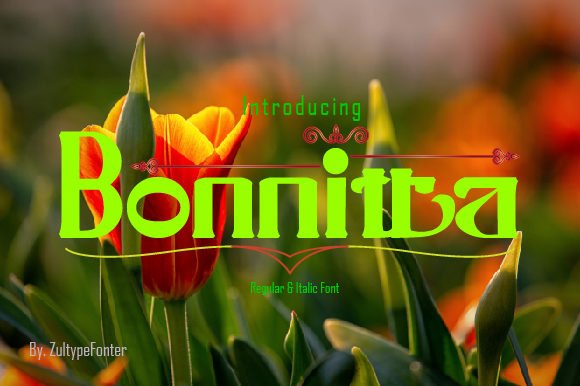
Discover the Perfect Serif Font for Your Creative Projects
Have you ever stared at a blank canvas, trying to come up with the perfect design concept, only to find that the right words just won’t come together? You’re not alone. Many designers face this challenge every day, and it’s often the smallest details that can make all the difference. That’s where the Bonnitta Font comes in – a beautifully crafted serif font designed to elevate your creative projects to new heights.
This stunning font is not just a pretty face; it’s a valuable tool for designers looking to add a touch of sophistication and elegance to their work. With its masterful design, Bonnitta Font has the potential to bring even the most mundane ideas to life. Whether you’re a seasoned pro or just starting out, this font is sure to become a true favorite in your design arsenal.
Bonnitta Font Key Features
- Unique Characteristics: Bonnitta Font features a unique blend of modern and vintage elements, with intricate details and ornate flourishes that set it apart from other fonts.
- Font Weight: Bonnitta Font offers multiple font weights, including Light, Regular, Bold, and Black, allowing designers to achieve a range of visual effects and emphasize specific text elements.
Bonnitta Font Review
I recently had the chance to work with the Bonnitta font, and I must say it’s a unique and intriguing addition to any design project. ✨ One of its strongest features is its versatility – it’s perfect for both body text and headings, making it an excellent choice for creating a cohesive visual identity.
Another aspect I appreciate about Bonnitta is its ability to adapt to various font sizes and styles. It looks great in both digital and print formats, making it a solid choice for a wide range of applications.
- ⚠️ Limited character set – Bonnitta may not support all languages or special characters, which could be a drawback for certain projects.
- ⚠️ Not ideal for extremely large or small text sizes – while it adapts well to most font sizes, it may not be the best choice for extreme cases.
Overall, I think the Bonnitta font is a great option for designers looking for a modern, elegant font. With its versatility and adaptability, it’s a solid choice for a wide range of projects. However, it’s essential to keep in mind its limitations, especially when working with non-standard languages or text sizes.
Tips for Getting the Most Out of Bonnitta Font
Here are some tips to help you get the most out of Bonnitta font:
- Use it for creative and artistic projects, such as designing logos or creating visual content.
- Pair it with other fonts to create a unique and eye-catching design.
- Experiment with different font sizes and styles to add
Q: Can I use Bonnitta Font for digital displays such as smartphones and tablets?
Yes, Bonnitta Font is optimized for digital displays and can be used for a variety of digital applications, including smartphones and tablets. However, it’s essential to test the font in different resolutions and screen sizes to ensure it looks its best.